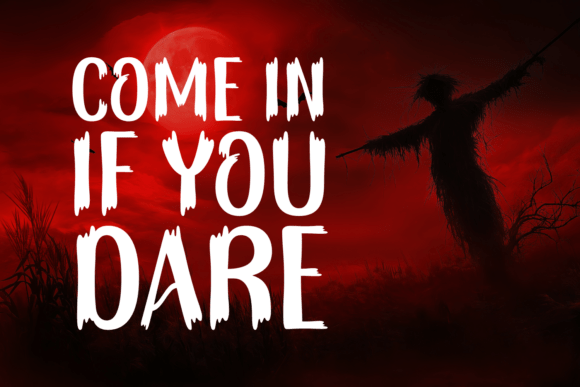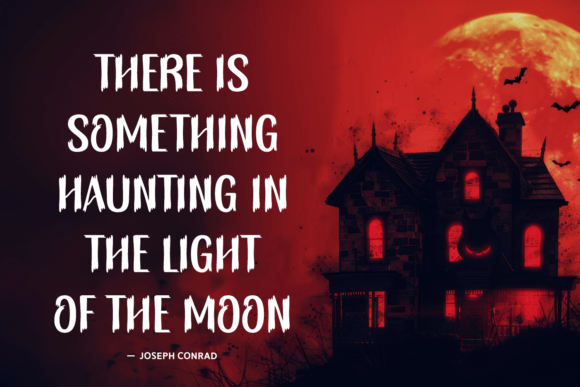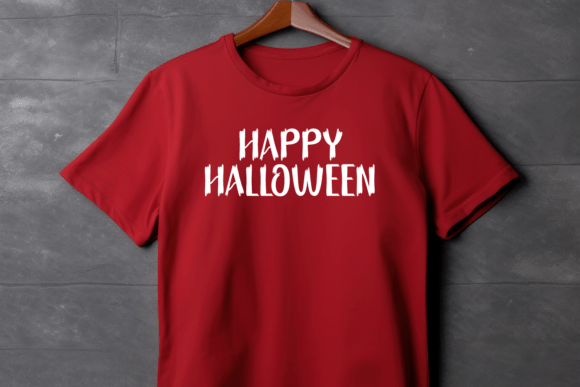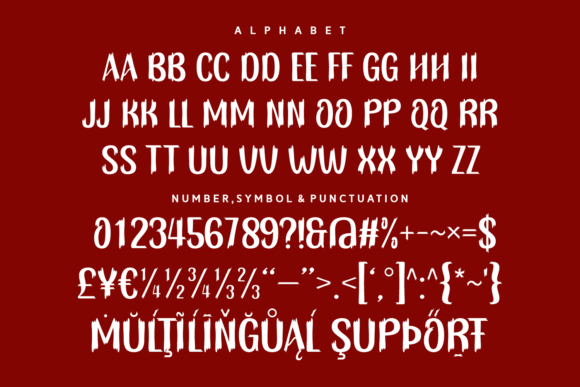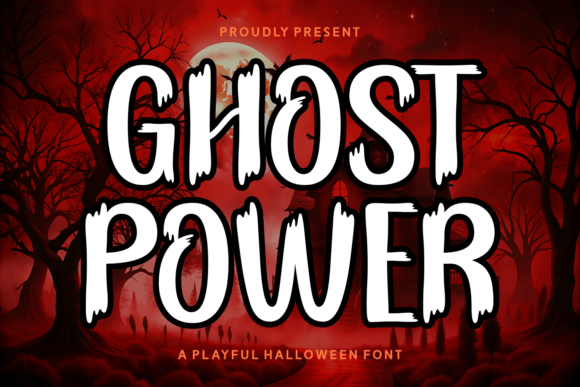
Unveiling “Ghost Power”: The Ultimate Display Font for Spooky Designs
As the spookiest time of the year approaches, designers and crafters are on the lookout for the perfect font to bring their Halloween-inspired creations to life. Look no further than “Ghost Power”, a bewitchingly versatile display font that’s sure to cast a spell on your audience. With its spooktacular and unnerving characteristics, this typeface is the perfect addition to your haunted inspirations and zombie lore.
A Font that’s to Die For
Captivatingly spooky and eerily alluring, “Ghost Power” is the perfect font for designers who want to add a touch of the macabre to their work. From witch curses to friendly “Boo” notes, this font fetches the spirit of Halloween and brings it to the design canvas. Its fluid versatility makes it perfect for a wide range of projects, from apparel graphics to book cover designs, greeting cards, logos, and more.
Edgy and Authentic
One of the standout features of “Ghost Power” is its edgy, blood-curling accent. This font adds a level of authenticity to your designs, making them perfect for apparel graphics, product packaging, and other applications where you want to make a bold statement. Whether you’re designing a haunted-themed t-shirt or a spooky Halloween poster, “Ghost Power” is sure to deliver.
A Font for Every Occasion
While “Ghost Power” is certainly perfect for Halloween-themed designs, its versatility makes it suitable for a wide range of projects. Its neat and sharp design makes it an ideal choice for clean and crisp greeting cards, logos, and love notes. The font’s smoothness also makes it perfect for magazine layouts, product packaging, and other applications where you want to add a playful touch.
Multi-Lingual Support
In today’s digital age, designers need fonts that can keep up with their multi-lingual needs. “Ghost Power” delivers, with support for multiple languages. Whether you’re designing a blog, a website, or a social media campaign, this font has got you covered.
“Ghost Power” is a font that’s been designed with designers and crafters in mind. Its unique blend of spooky and playful characteristics makes it perfect for a wide range of projects, from haunted-themed designs to more lighthearted applications. Whether you’re a professional designer or a DIY crafter, this font is sure to inspire your creativity.
Bringing Your Designs to Life
So how can you use “Ghost Power” to bring your designs to life? Here are a few ideas to get you started:
- Use “Ghost Power” to create eye-catching apparel graphics, such as t-shirts, hoodies, and hats.
- Add a touch of the macabre to your book cover designs, with a font that’s sure to grab attention.
- Create spooky and inviting greeting cards, perfect for Halloween or any other occasion.
- Use “Ghost Power” to add a playful touch to your magazine layouts, product packaging, and other designs.
In conclusion, “Ghost Power” is a bewitchingly versatile display font that’s perfect for designers and crafters who want to add a touch of the spooky and unknown to their work. With its edgy, blood-curling accent and fluid versatility, this font is sure to cast a spell on your audience. Whether you’re designing for Halloween or just want to add a playful touch to your work, “Ghost Power” is the perfect choice.